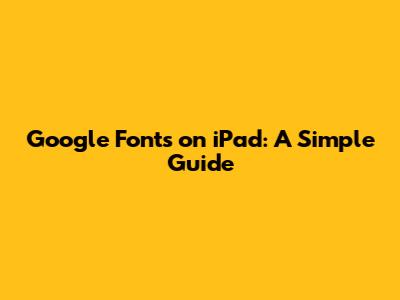
Hey guys! Ever wanted to jazz up your iPad creations with some cool, unique fonts? You're in luck! Using Google Fonts on your iPad is totally doable, and I'm here to walk you through it. Whether you're a graphic design guru, a student working on a project, or just someone who loves a good font, this guide will get you set up in no time. We'll cover everything from the basics to some neat tricks to make your iPad typography pop. So, grab your iPad, and let's dive into the world of Google Fonts!
Why Use Google Fonts on Your iPad?
So, why bother with Google Fonts, you ask? Well, there are tons of awesome reasons! First off, it's free! Google Fonts offers a massive library of fonts, all available for free use, which is a massive win, especially if you're on a budget. Secondly, Google Fonts are designed to look great on any device, including your iPad, ensuring your text is crisp and clear. Plus, using unique fonts can significantly enhance the visual appeal of your work, making it stand out from the crowd. Think about it: a well-chosen font can transform a boring document into something eye-catching, a simple presentation into a professional-looking masterpiece, or your social media posts into something truly memorable. Furthermore, the fonts are optimized for web use, meaning they're super easy to integrate into websites or digital projects you might be working on from your iPad. The variety is insane too; you’ll find everything from classic serifs to modern sans-serifs, quirky scripts, and bold display fonts. It's like having a giant candy store for your typography needs! This is a great thing because it means you can match the fonts to the tone of your project, whether you're aiming for elegance, playfulness, or professionalism. And honestly, it’s just fun to experiment and find the perfect font that speaks to you and your audience. Google Fonts helps add a touch of personality and creativity to everything you do on your iPad. Finally, it's really about giving yourself more creative control. You're not stuck with the limited font options that come pre-installed. You can customize the look and feel of your iPad projects to your heart's content, which is super empowering.
Tips and Tricks for Using Google Fonts Effectively
Alright, let’s level up your font game! Here are some tips and tricks for using Google Fonts effectively on your iPad. First off, pair fonts wisely. Don’t just pick any two fonts and call it a day. Think about how the fonts complement each other. Try using a serif font for headings and a sans-serif font for body text, or vice versa. Font pairing is an art, so experiment with different combinations until you find something that looks great. Then, consider readability. While it's tempting to use fancy fonts, always prioritize readability, especially for body text. Make sure your chosen font is easy to read at different sizes and on various backgrounds. Also, pay attention to font size and spacing. Adjust the font size to fit the context. Too small, and it's unreadable; too large, and it overwhelms the design. Adjust the line spacing (leading) and letter spacing (tracking) to improve readability and visual appeal. Test your designs on different devices. What looks good on your iPad might not look as good on a smaller iPhone screen or a larger desktop monitor. Make sure your fonts are legible across different screen sizes. Utilize font weights and styles. Use bold, italic, and different font weights to create emphasis and hierarchy in your text. This helps guide the reader’s eye and adds visual interest. Don't be afraid to experiment. Play around with different fonts, sizes, and styles. The more you experiment, the better you’ll become at making great typography choices. Take inspiration from others. Look at websites, magazines, and other designs that you admire. Take note of the fonts they use and how they’re paired. You can find inspiration and get ideas for your own projects. Also, remember to stay consistent. Once you've chosen a font, use it consistently throughout your project to create a cohesive look. Avoid switching fonts unless it’s absolutely necessary. Lastly, check the license. Although Google Fonts are free to use, it’s always a good idea to double-check the license for any specific font, especially if you plan to use it commercially. Some fonts might have restrictions on their usage. Following these tips will take your iPad creations from good to amazing.
Conclusion: Unleash Your Creativity with Google Fonts
There you have it! Using Google Fonts on your iPad is a fantastic way to enhance your creative projects. We’ve covered everything from why you should use Google Fonts, to the different methods of installing them, and even some handy tips and tricks to make the most of your fonts. By following these steps and exploring the vast library of Google Fonts, you can add a unique flair to your documents, presentations, and designs. Remember, choosing the right font can transform any project, so take your time, experiment with different options, and find the perfect fonts that reflect your style and creativity. So, go out there, download some fonts, and start creating! Your iPad typography journey awaits. Happy designing, guys!